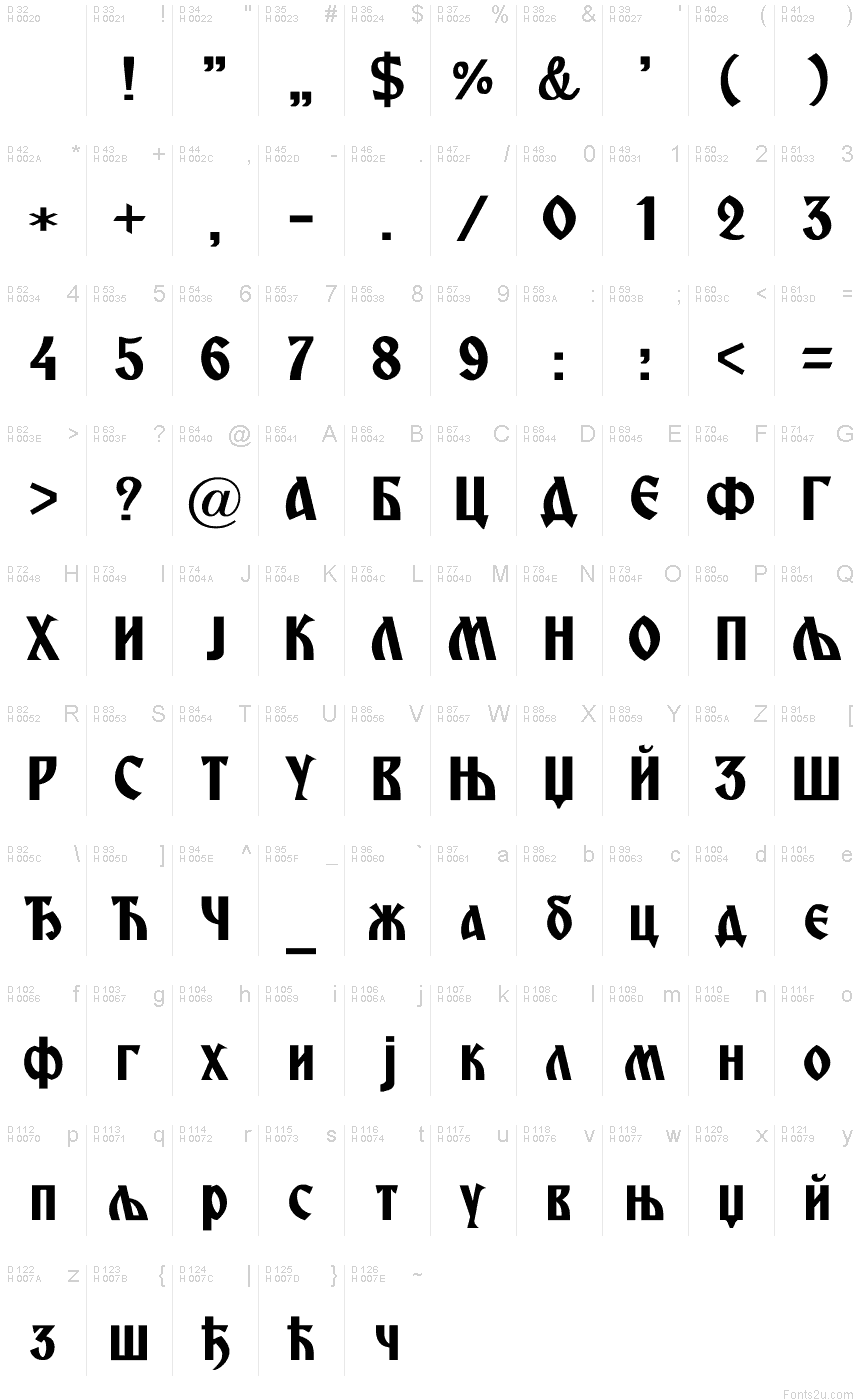
Miroslav Crn by ONYX Studio is a free Cyrillic display font with a distinctly Slavic, manuscript-born mood. The letters feel carved rather than drawn, with heavy vertical forms, pointed inner cuts, and rounded diamond-like openings that give the font a solemn, old-world rhythm.
It suits poster titles, folk festival graphics, book covers, record sleeves, and restaurant branding where you want a strong Eastern European accent without turning ornate. As a free font, it also works well for short headlines, title cards, and monogram-style initials, because those dark, sculpted shapes hold attention even in just a few letters.